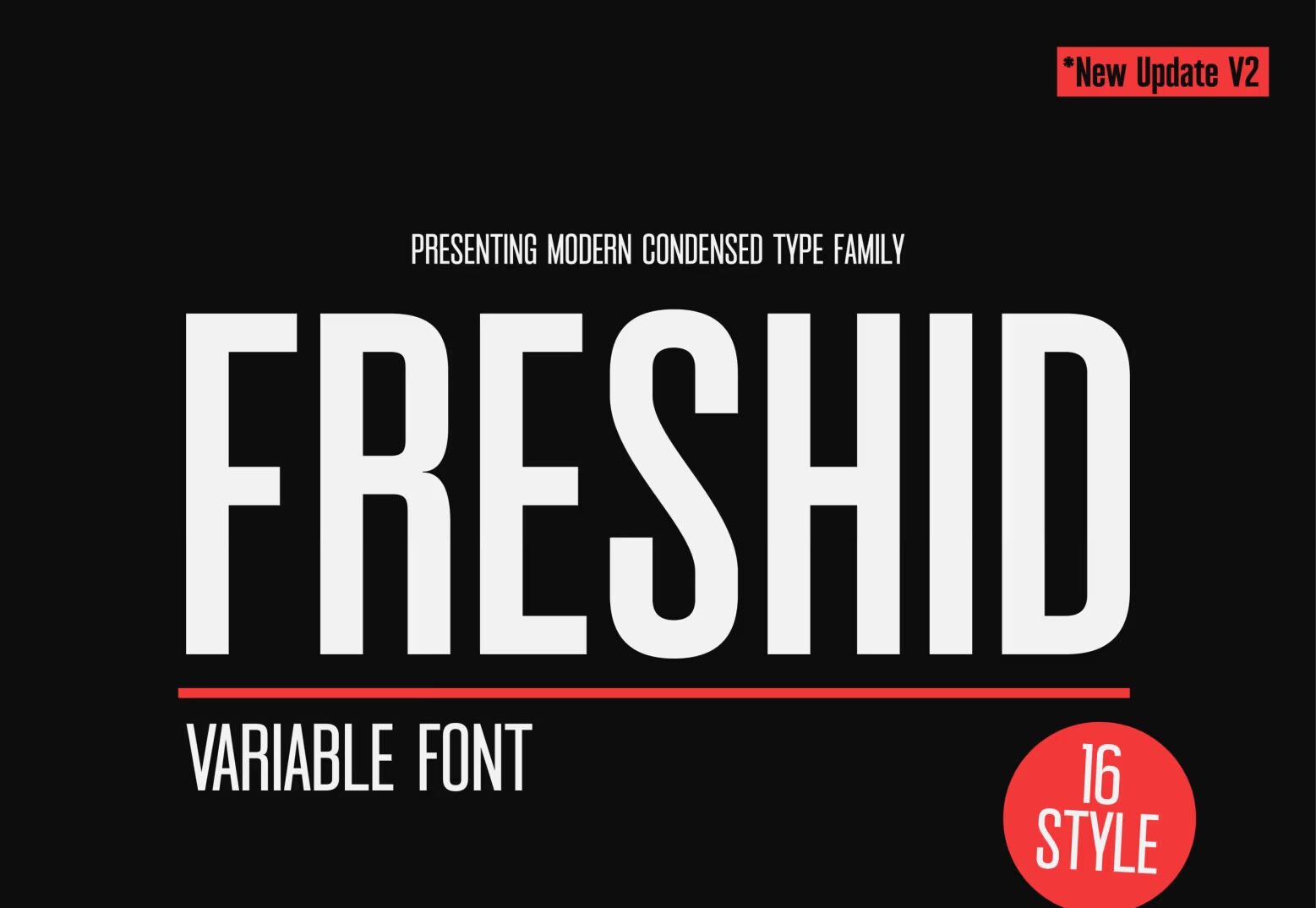
Freshid – Sans Serif Condensed Font Family
Freshid – Sans Serif Condensed Font Family is a modern sans serif typeface with a condensed proportion. It is designed to be clean, efficient, and visually strong while maintaining excellent readability. This font works well for headlines, posters, branding, packaging, social media graphics, and contemporary design projects.